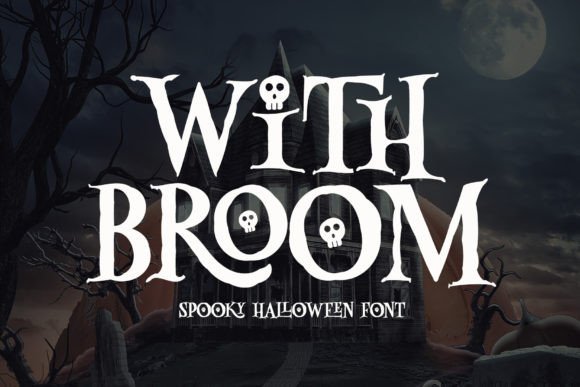
Journey into the mystical realm of With Broom Font, a captivating serif masterpiece conjured for the Halloween season. This all-caps display font oozes spooky and retro vibes that ignite the imagination. It's a sorcerer's spell, weaving its charm effortlessly into designs that evoke the thrill and enchantment of All Hallows' Eve.
Unleash the haunting beauty of With Broom, a font that's as eerie as a moonlit forest and as captivating as a haunting melody. Its graceful curves and sharp edges dance harmoniously, creating an aura of mystery that's sure to cast a spell on your audience.
With Broom is the perfect font for designs that dare to bewitch and enchant. Whether you're designing Halloween-themed t-shirts, stickers, crafting projects, or sublimation designs, this font will add an instant touch of spine-tingling charm. Its PUA encoding allows for effortless access to an array of extraordinary glyphs and ligatures, empowering you to cast powerful visual spells that leave a lasting impression.
With Broom Font isn't merely a font; it's a gateway to a world where imagination runs rampant and creativity knows no bounds. It's a font that invites you to embrace the magic within and conjure designs that will haunt your audience's dreams long after they've encountered them.
Embrace the haunting allure of With Broom Font and let your creativity soar to new heights. Prepare to be spellbound by its captivating presence and enchant your designs with an aura of mystery and intrigue. Halloween will never be the same again!